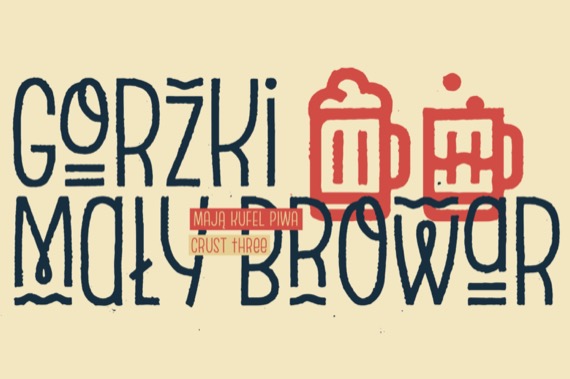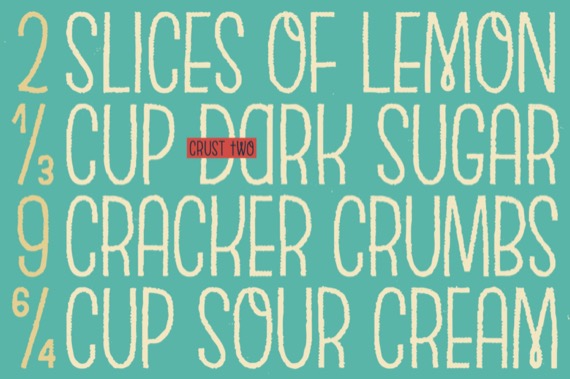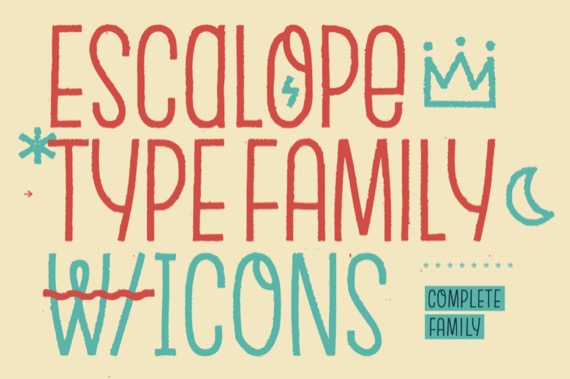
Escalope is a natural and hand-drawn font family from Antipixel with a crazy and unique personality; with matching icons, this playful font will give your projects a fresh and new look! This sans serif rounded font has tons to offer and will give your designs a relaxed and jovial feel.
Escalope Handwritten Script Font